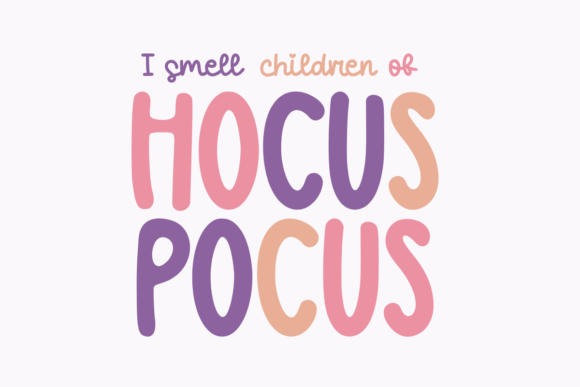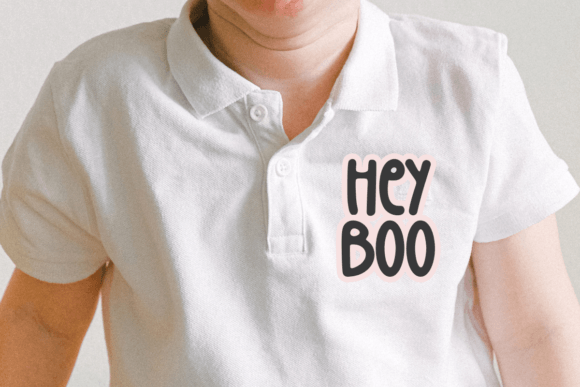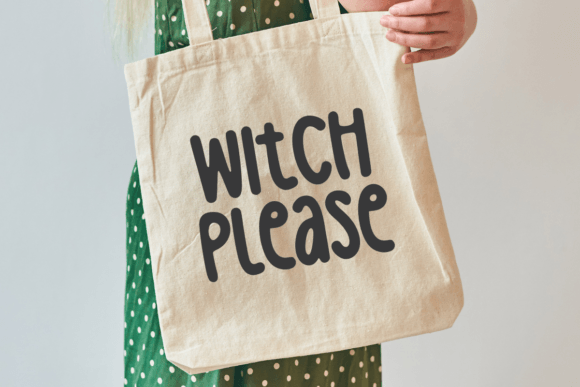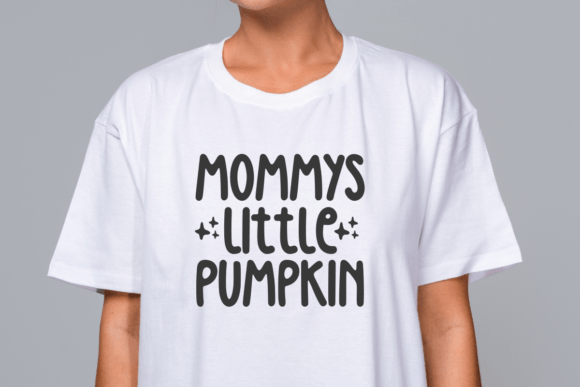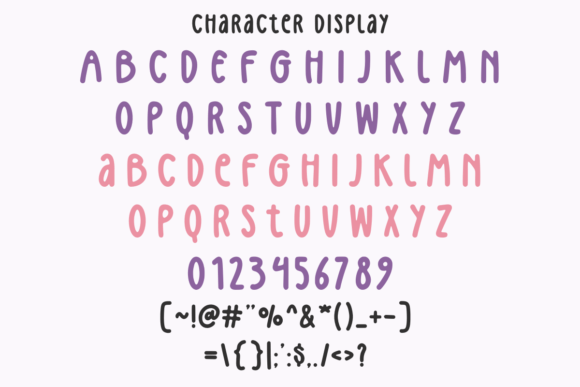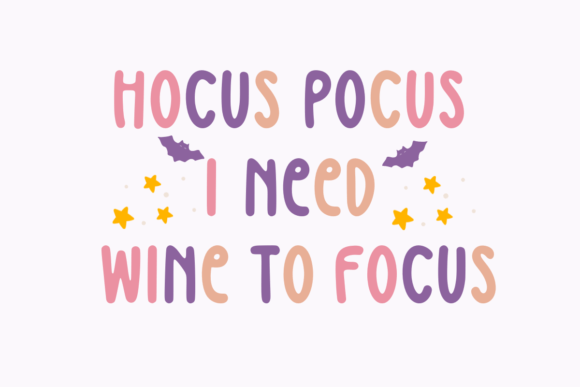
Unleash the Spooky Charm with Ghostes Season Font: A Perfect Blend of Whimsy and Festivity
Are you a designer, crafter, or DIY enthusiast looking for a unique and captivating font to add a touch of magic to your projects? Look no further than Ghostes Season Font, a handcrafted display font that embodies the essence of festive aesthetics. With its enchanting and whimsical charm, this font is perfect for a wide range of creative projects, from Halloween-themed designs to stylish apparel and accessories.
The Story Behind Ghostes Season Font
Ghostes Season Font is more than just a typography; it’s a creative journey waiting to unfold. This uniquely crafted font has been designed with a dash of eccentric magic, making it perfect for those who dare to be different. Whether you’re a professional designer or a crafty DIY enthusiast, Ghostes Season Font is sure to inspire your next project and elevate it to extraordinary heights.
Perfect for Halloween and Beyond
As the spookiest time of the year approaches, Ghostes Season Font is the perfect companion for your Halloween-themed designs. From enchanting quotes and stylish t-shirts to bespoke tote bags and playful kids’ apparel, this font adds a touch of whimsical charm to any medium. But Ghostes Season Font is not limited to Halloween; its festive aesthetics make it suitable for a wide range of creative projects, including:
- Halloween-themed designs, such as posters, invitations, and decorations
- Stylish apparel, including t-shirts, hoodies, and hats
- Bespoke accessories, like tote bags, mugs, and tumblers
- Playful kids’ apparel and nursery decor
- Unique gifts, such as cards, gift tags, and wrapping paper
What Makes Ghostes Season Font So Special?
Ghostes Season Font stands out from the rest due to its:
- Unique and handcrafted design: Each letter has been carefully crafted to ensure a distinctive and eye-catching look.
- Festive aesthetics: The font embodies the essence of festive fun, making it perfect for Halloween and other celebrations.
- Whimsical charm: Ghostes Season Font adds a touch of magic to any project, making it perfect for designers and crafters who want to create something truly special.
- Versatility: The font can be used for a wide range of projects, from digital designs to print materials.
| Font Name | Ghostes Season Font |
| Author | Sakti Avellin |
Ghostes Season Font is a uniquely crafted display font that adds a touch of whimsical charm to any project. With its festive aesthetics and enchanting design, it’s perfect for designers, crafters, and DIY enthusiasts who want to create something truly special. Whether you’re working on a Halloween-themed design or a stylish apparel project, Ghostes Season Font is sure to elevate your work to extraordinary heights. So why wait? Unleash the spooky charm of Ghostes Season Font and let your creativity shine!